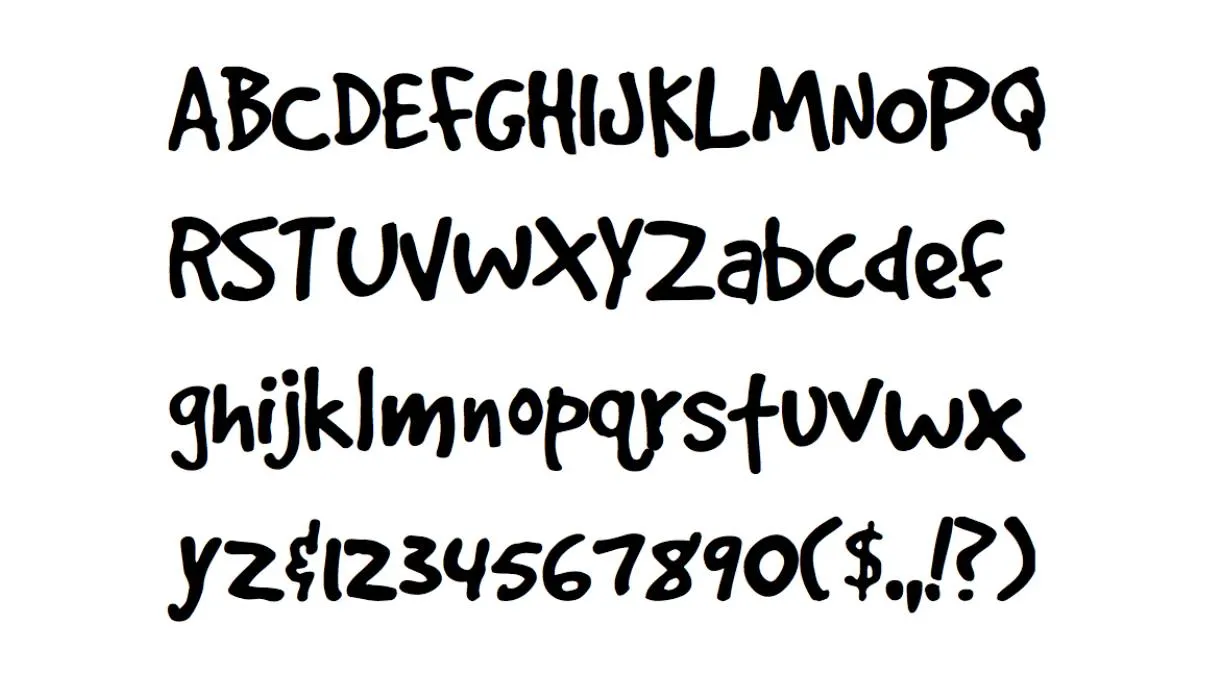
Good Dog Font adds a friendly and approachable touch to your designs. With its rounded and casual letters, this font is perfect for projects that aim to convey a sense of warmth and friendliness. Use it for personal messages, invitations, or any design where a lighthearted and welcoming appearance is desired.
| Name | Good Dog Font |
| Designer | Ethan Dunham |
The font’s technical details include a moderate weight and medium width, providing readability while maintaining a playful charm. Good Dog Font is crafted for projects that want to create a friendly and inviting atmosphere in their designs, adding a touch of canine charm to the overall aesthetic.